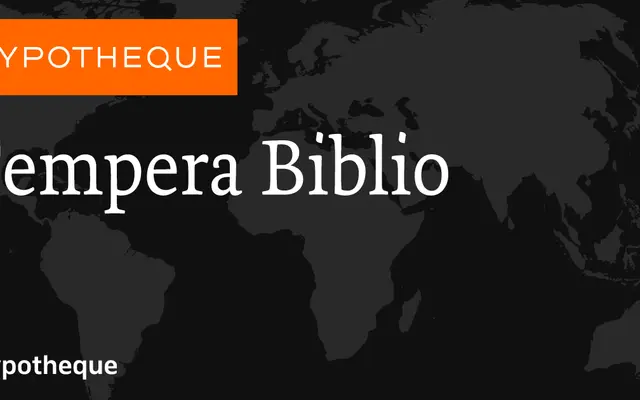
Tempera Biblio
A multi-grade book serif system from Typotheque, built for demanding long-form text setting with three optical grades and wide variants.
Tempera Biblio is a book-focused serif family offering three optical grades (A, B, C) each with italic and wide companions, allowing fine control over colour and density across different paper stocks and print conditions. The system extends into a broader Tempera family with Light through Bold weights and matching italics, giving designers a unified toolkit from body text to display. Its naming after world cities and references to 16th-century Polish book design point to a rigorous historical grounding.
Tempera Biblio is a book-oriented serif system with multiple optical grades (A, B, C) and wide variants designed for long-form text setting, placing it firmly in the book serif tradition.